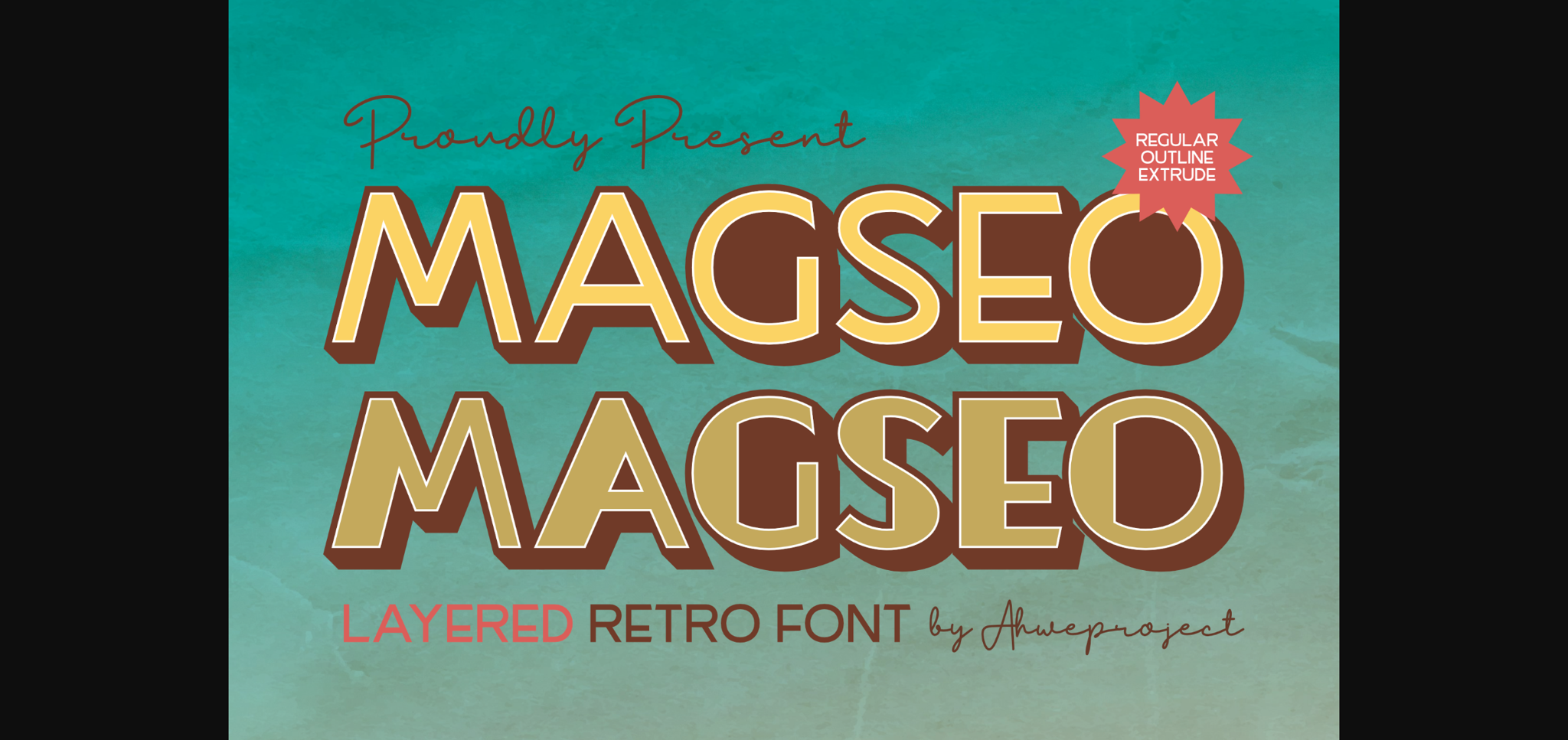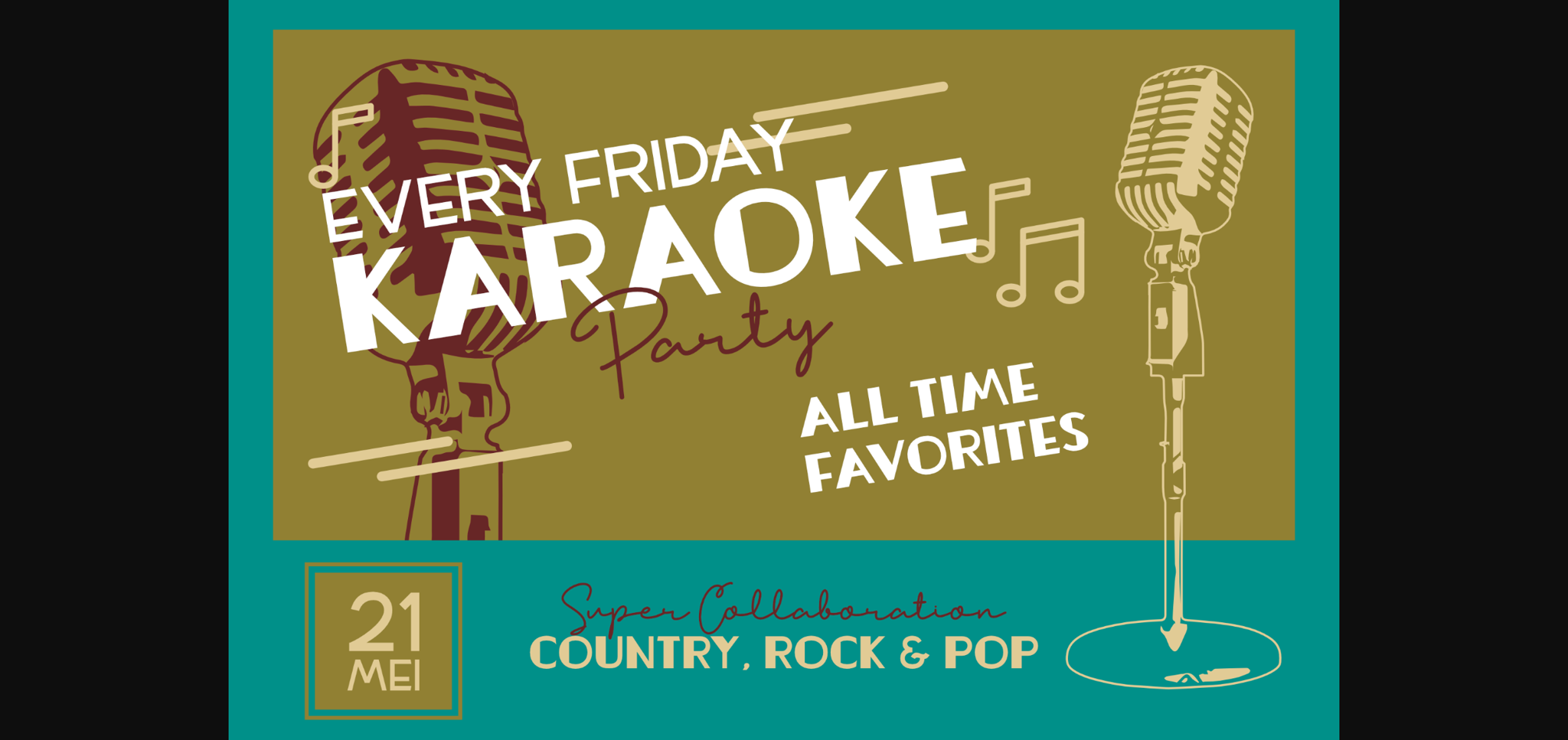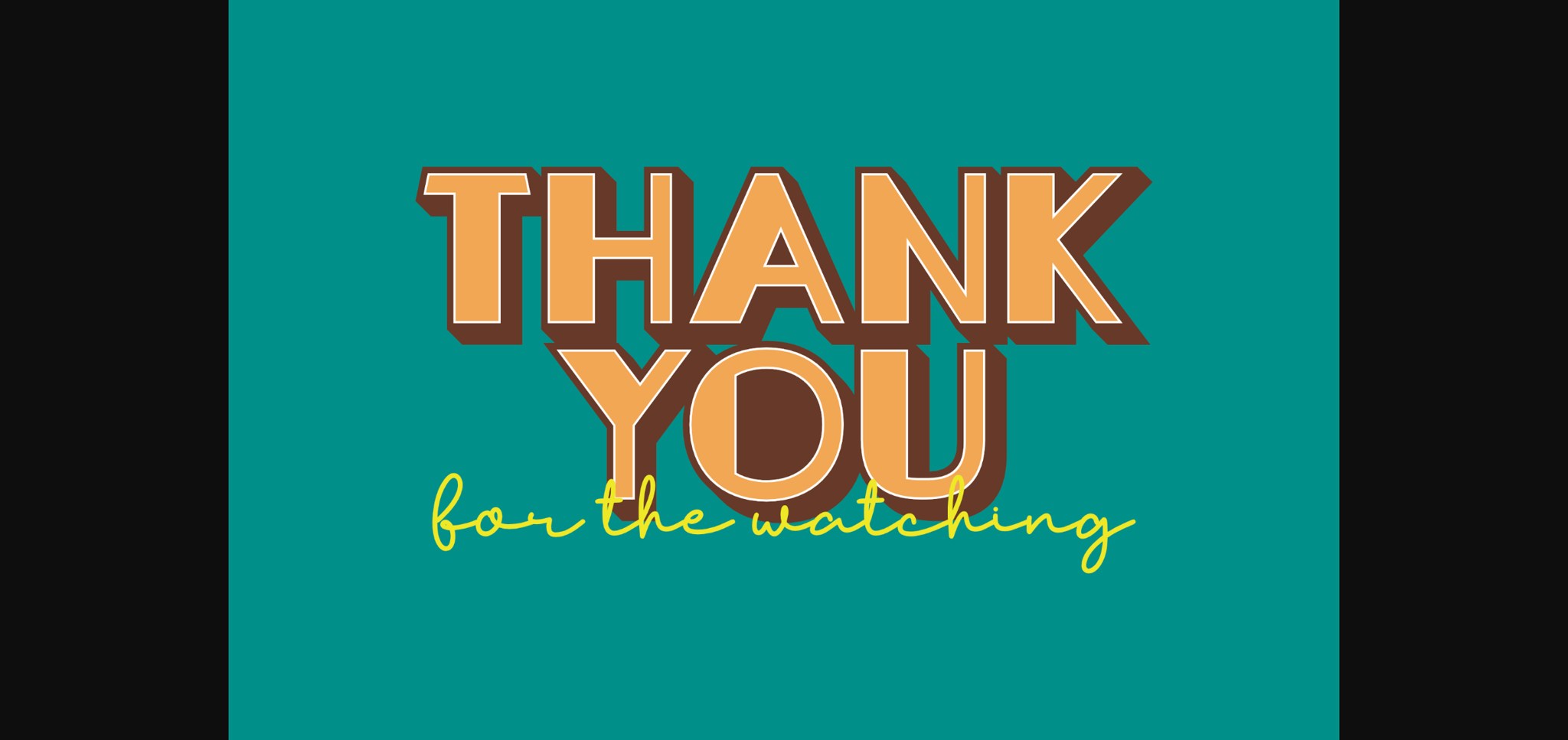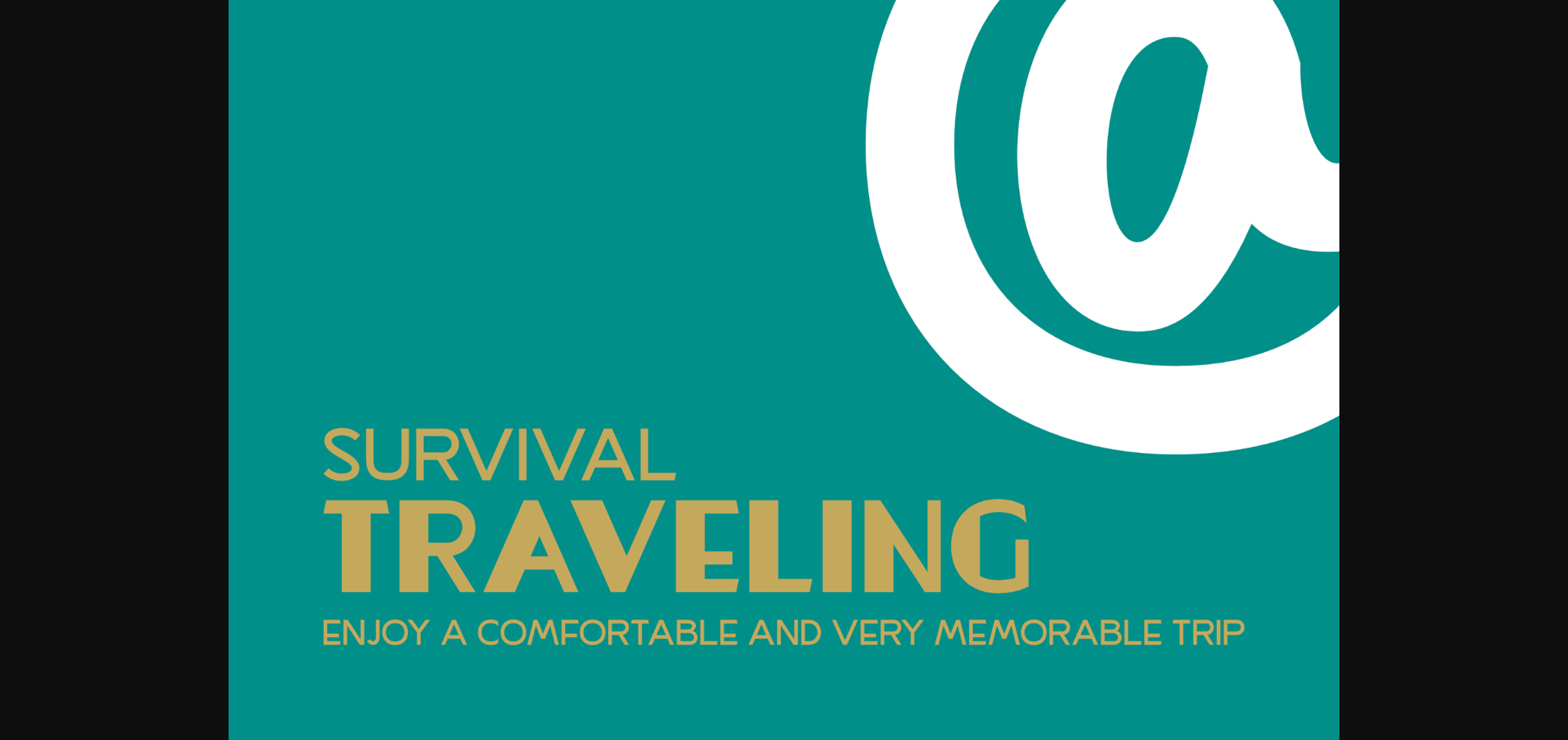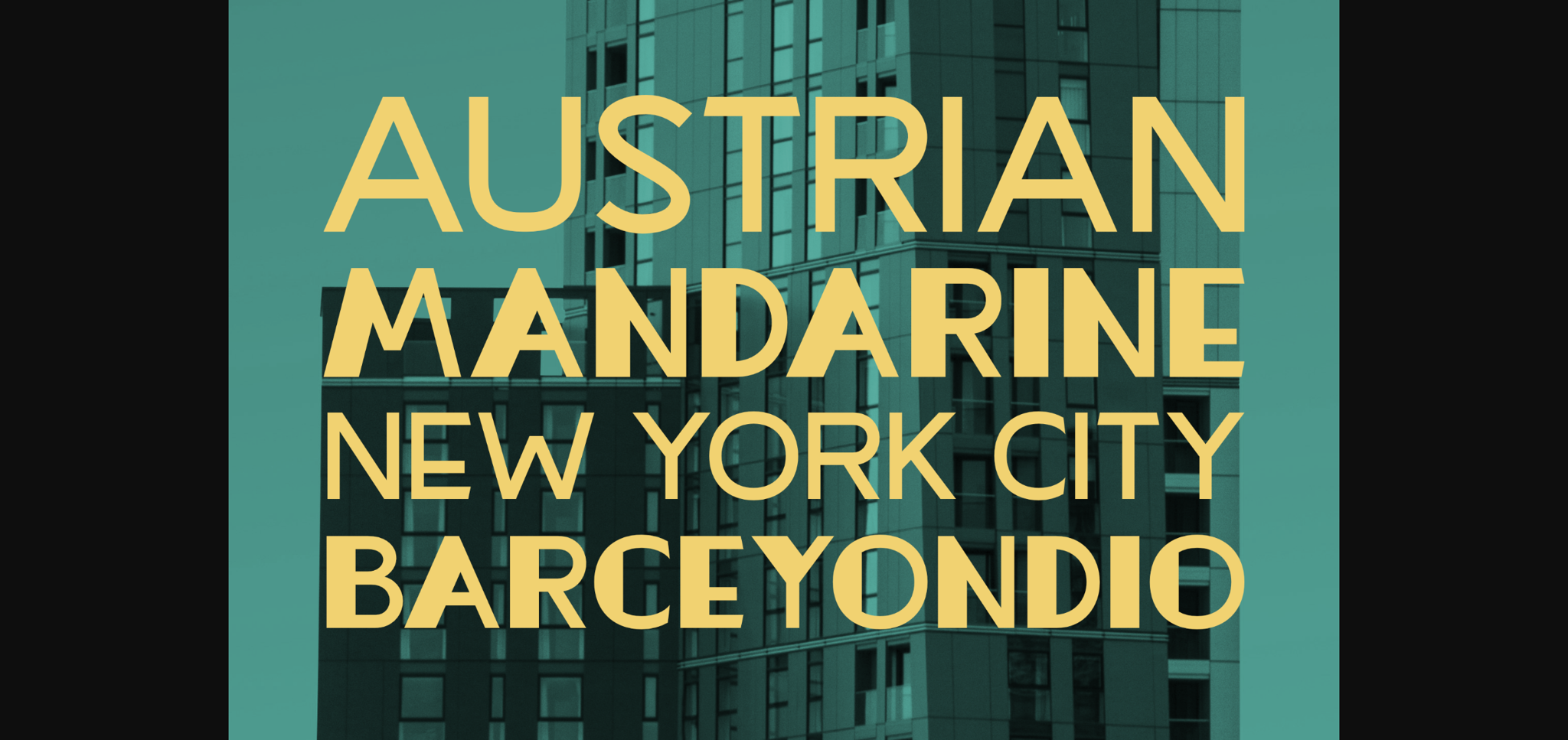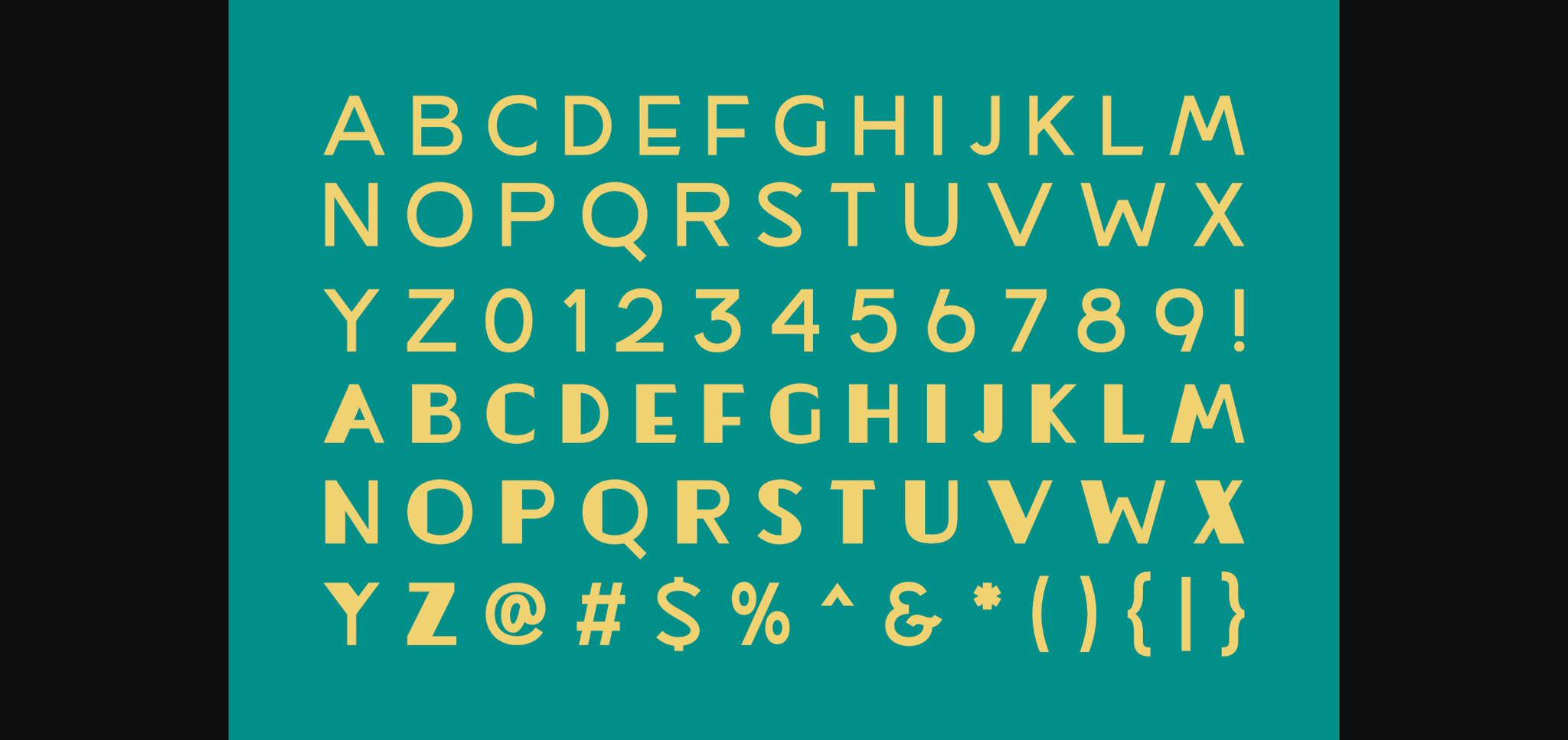
About Magseo Font
Revel in the classic elegance of Magseo, a retro-inspired sans serif font. With its thinly structured yet boldly distinguished lowercase letters, Magseo whispers vintage charm in every curve. Drawing on timeless aesthetics, it brings a nostalgic touch to a variety of design applications. From attention-grabbing headlines and dynamic magazine content to impactful brand messaging, Magseo stands as a versatile companion for multifaceted design needs. Evoke a sense of classic sophistication with the rich texture of the Magseo font.